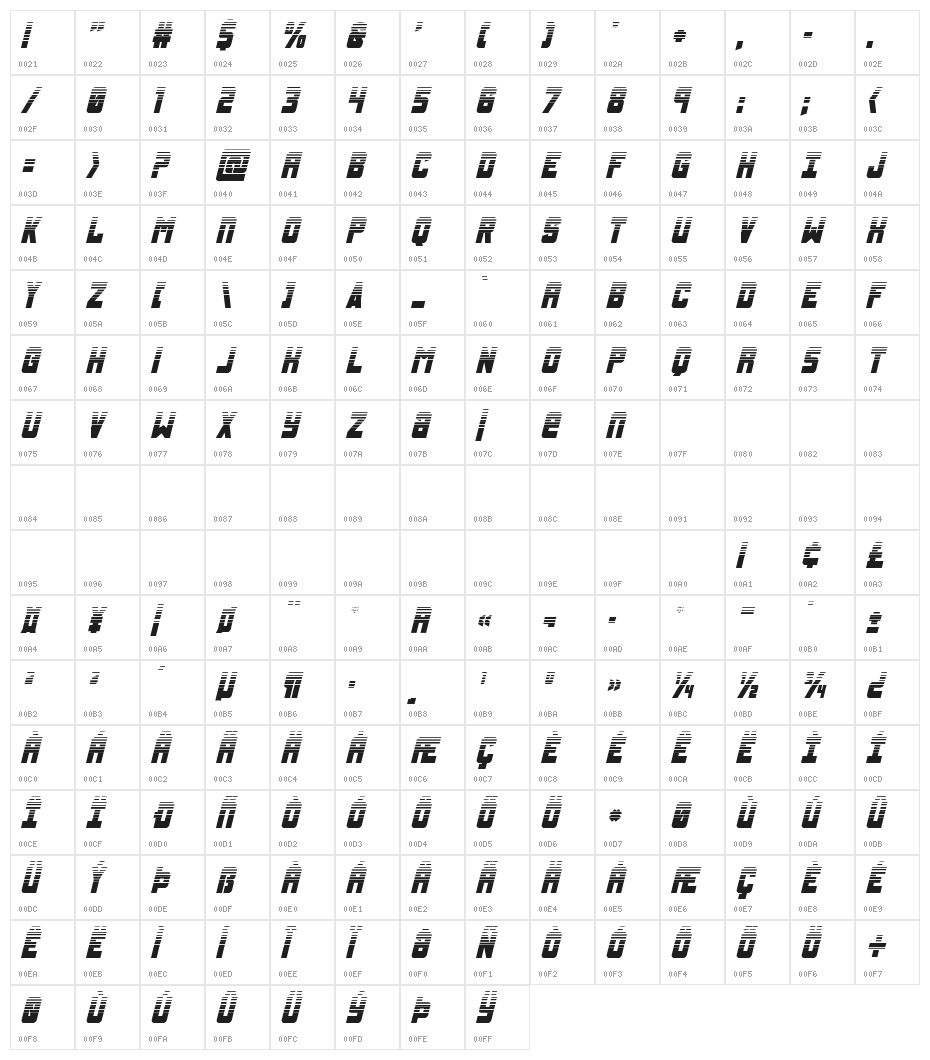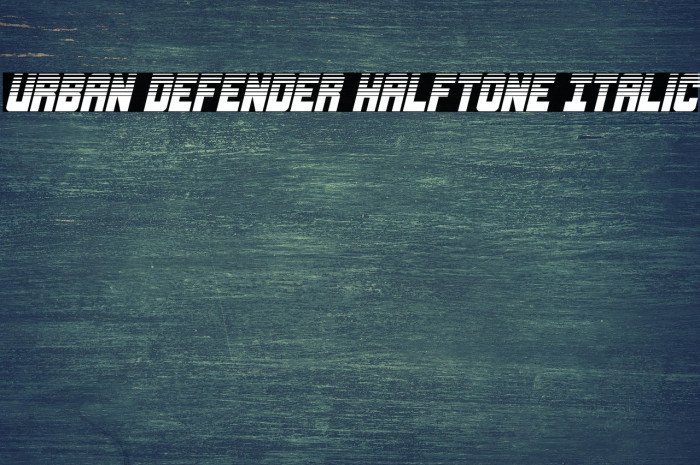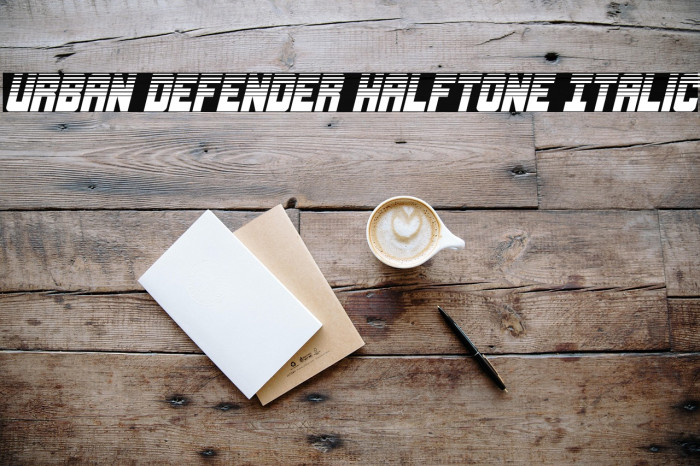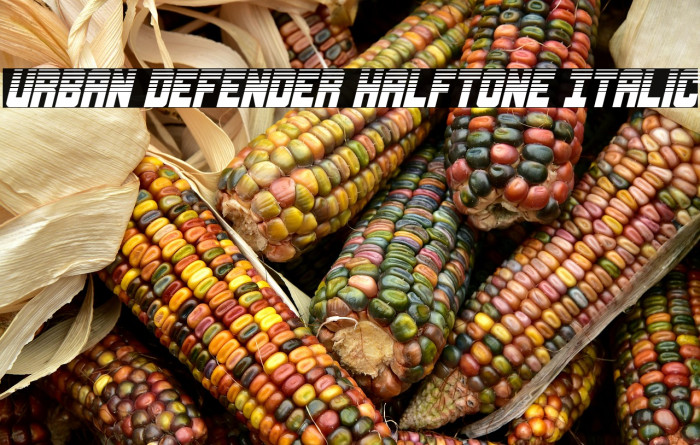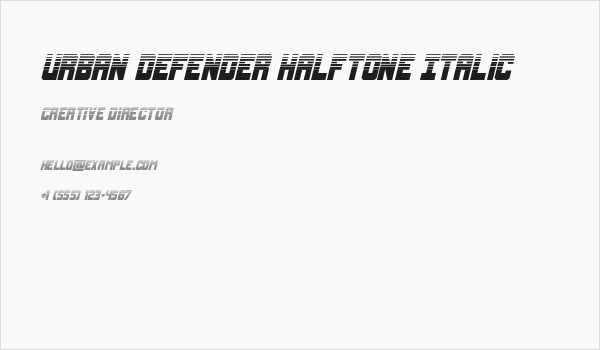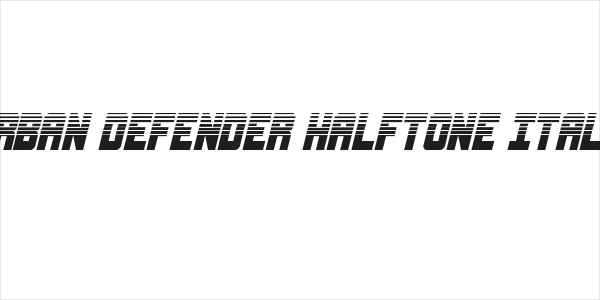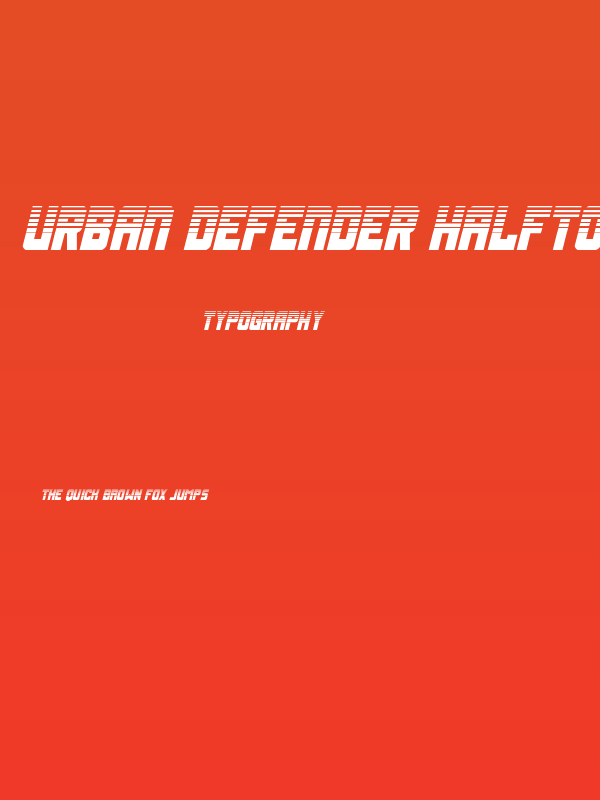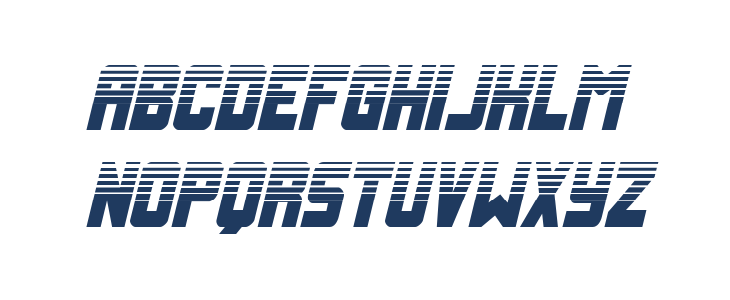
Urban Defender Halftone Italic Font
Urban Defender Halftone Italic Description
This font features a bold, dynamic style with a halftone effect that gives it a unique, futuristic appearance. The italicized letters are sharply angled, enhancing the sense of motion and energy. The uppercase and lowercase letters maintain a consistent width, while the numbers and special characters are designed to match the overall aesthetic. The halftone pattern creates a sense of depth and texture, making it ideal for eye-catching designs. The font's distinct style is perfect for projects that require a modern and edgy look.
| Proposed Projects | Ideal for posters, album covers, video game graphics, and any project needing a modern, edgy look. |